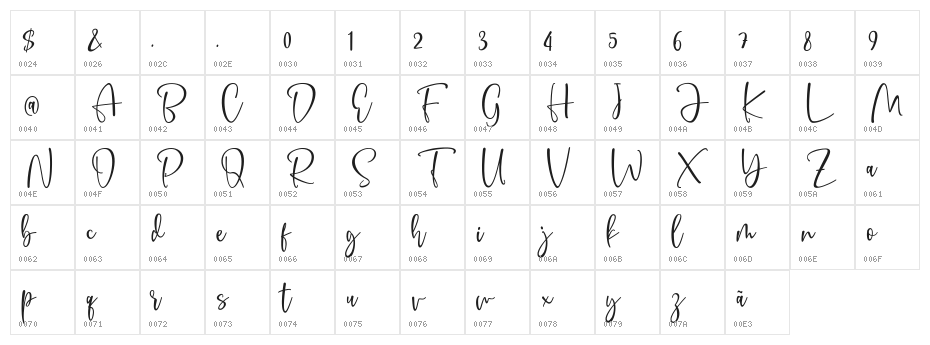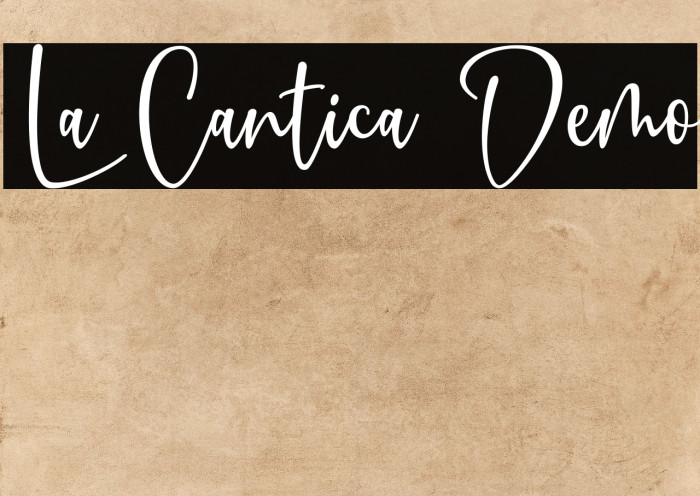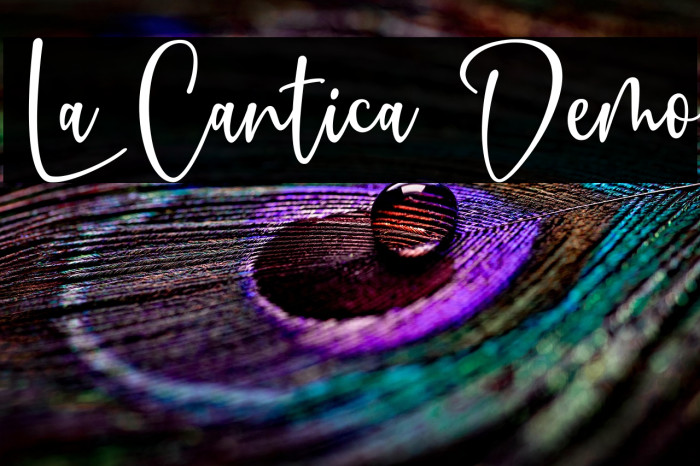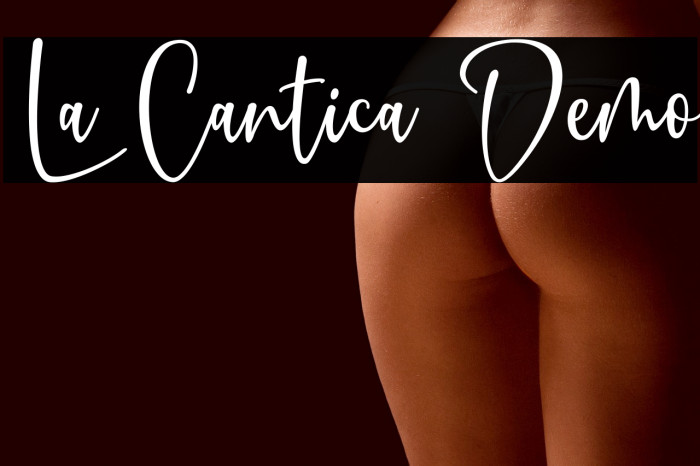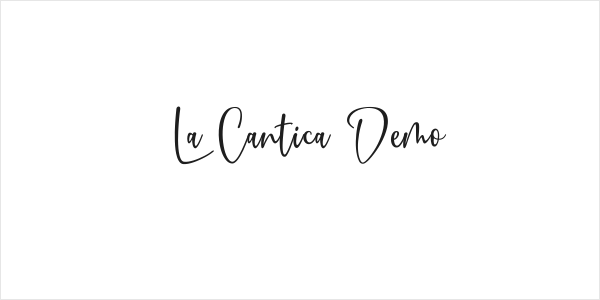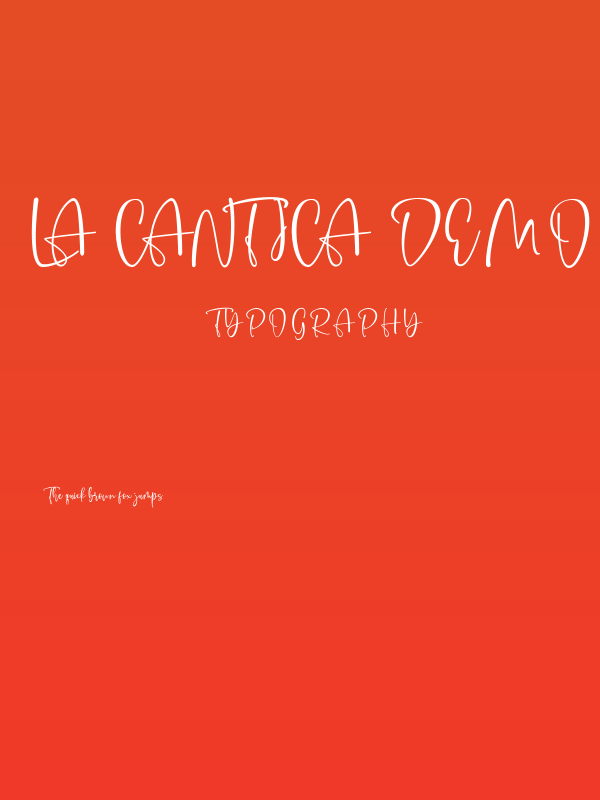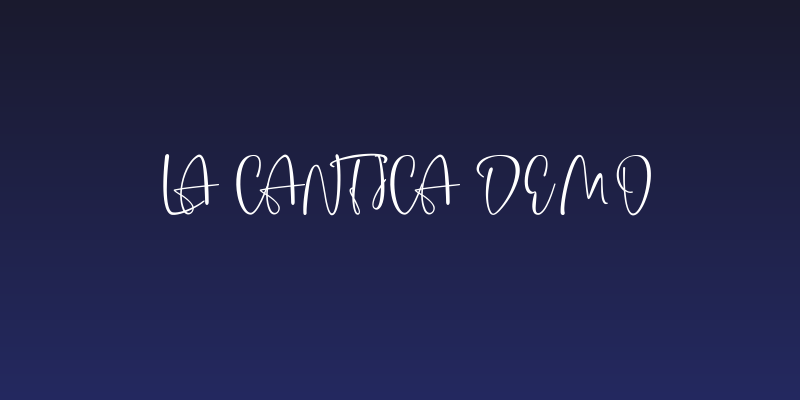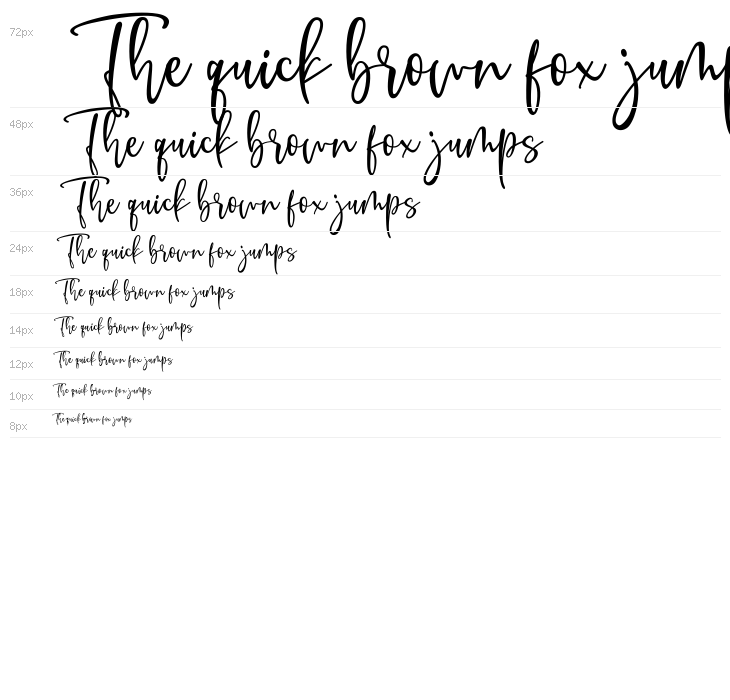
La Cantica Demo Font
La Cantica Demo Description
This font features a lively and elegant script style with a handwritten feel. The uppercase letters are characterized by their flowing, interconnected strokes, creating a sense of movement and grace. The lowercase letters maintain a consistent style, with smooth curves and a slightly playful appearance. The numbers are bold and clear, ensuring readability while maintaining the overall aesthetic. Special characters like the ampersand and dollar sign are designed with the same fluidity, adding to the cohesive look. This font is perfect for projects that require a personal touch, such as invitations, greeting cards, or branding materials.
| Proposed Projects | Ideal for invitations, greeting cards, branding, and personal projects. |